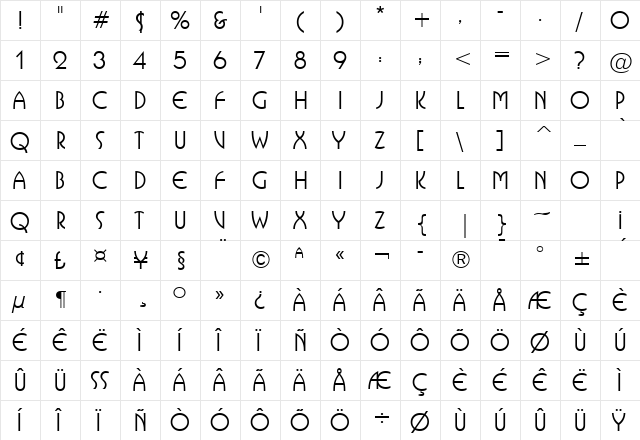
Halfmoon Regular
Design Context for Halfmoon Typeface
Halfmoon is a composed and adaptable typeface that performs quietly and consistently across a wide range of design contexts.